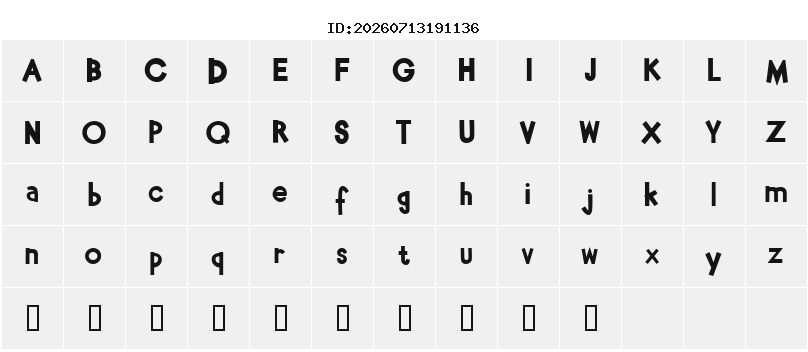
• Font Name: Babe Bamboo
• Font ID: Macromedia Fontographer 4.1 Babe Bamboo
• Full Font Name: Babe Bamboo
• Version: Macromedia Fontographer 4.1 1997-11-18
• PostScript Name: BabeBamboo
• Character Count: 59
• Copyright: Jenny Barck 1997
About Babe Bamboo.ttf
Babe Bamboo.ttf is a modern, elegant sans-serif font designed for ultimate readability and visual harmony. Perfect for branding, headlines, web design, and print materials.